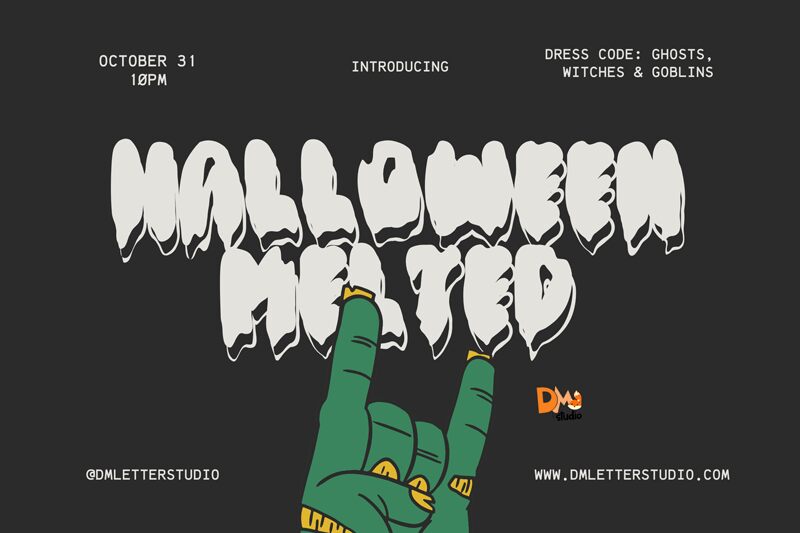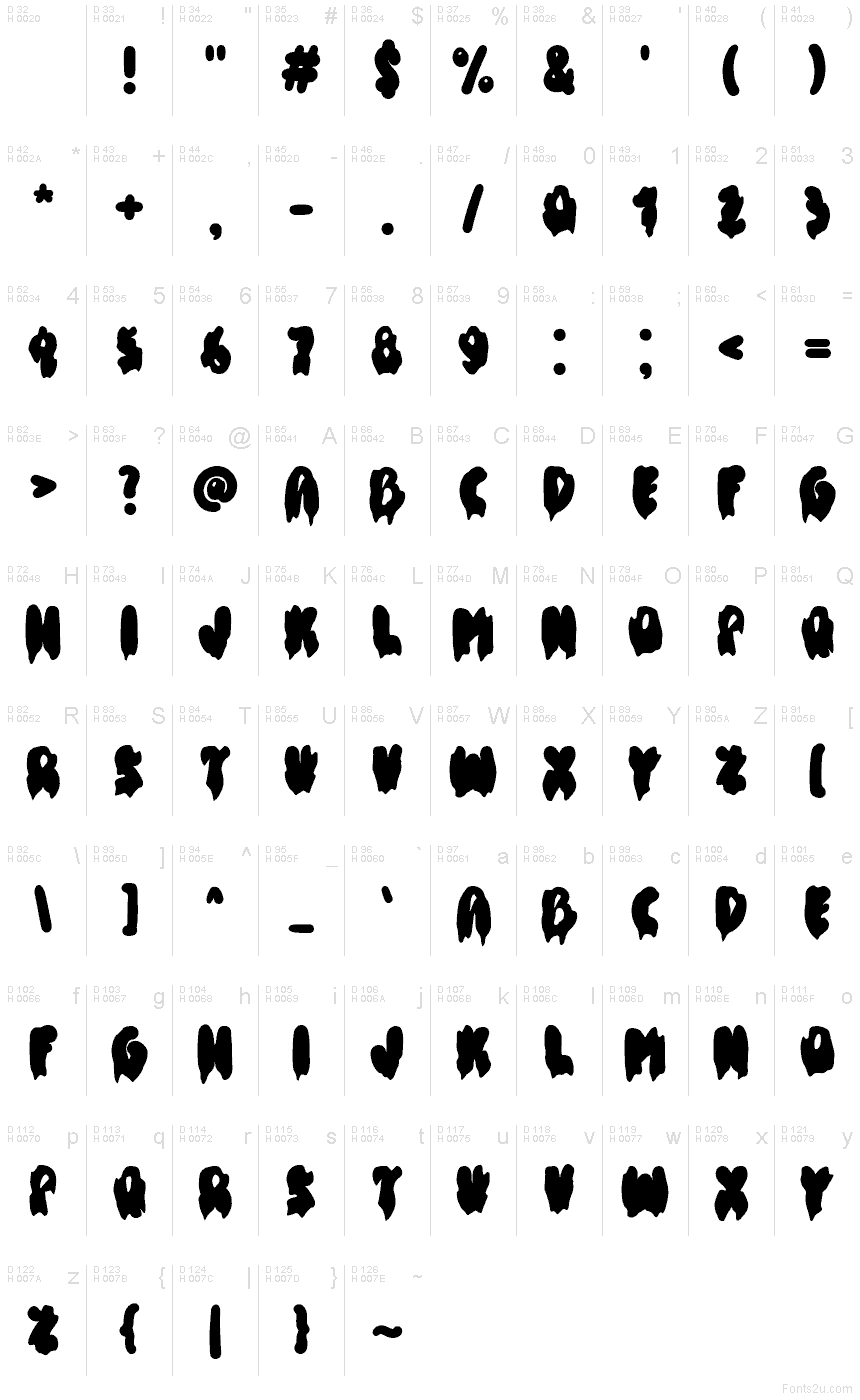
Halloween Melted font by DM Letter Studio - Dimas Prasetyo is a free Halloween display font. Thick, inky letterforms sag with gooey drips and soft, rounded edges, like signage pulled from a haunted funhouse. The weighty silhouettes read fast at a distance, while the melt effect adds just enough creep without turning illegible—great when you want bold impact and a playful shiver.
Using Halloween Melted, you can nail spooky posters, party invites, haunted house signage, trick-or-treat bag labels, social promos, thumbnails, and seasonal packaging. This free font shines at big sizes with slightly looser tracking so the drips breathe. Pair it with a clean condensed sans for details to keep the slime front and center.